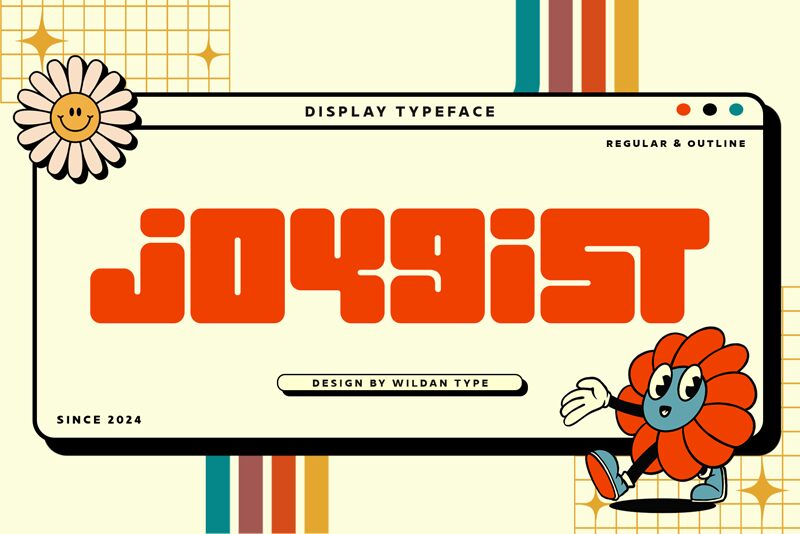
Joygist font family by Wildan Type is a groovy and retro-inspired typography masterpiece. While blocky and in no way delicate, it packs a dynamic youthful energy with its minimalist style and bold geometric style. Rounded elements give a softness to the letters that counter-balance the bold otherwise mechanical appearance. A free font family, Joygist includes 2 font styles to enjoy mainly for display typography in personal projects.
From posters to social media graphic images, Joygistâs modern style can decorate and elevate. Its recommendations for usage also include headings, banners, book covers, ads, branding, apparel design, and packaging applications.